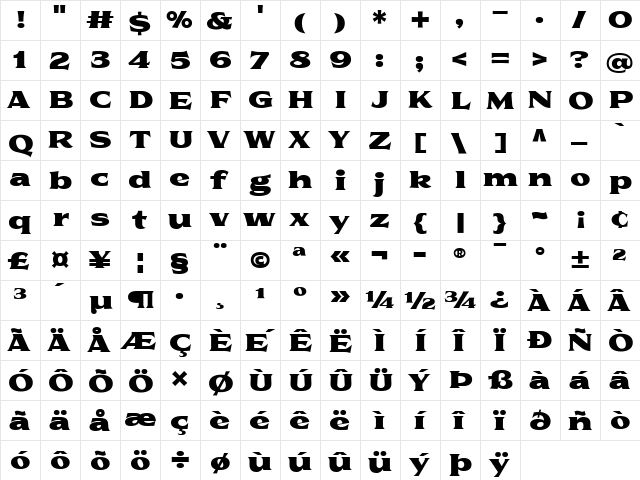
Florent PosterTwo Regular
| Foundry | Cahya Sofyan |
| Designer | Cahya Sofyan |
Design Context for Florent PosterTwo Typeface
Florent PosterTwo takes a measured approach to typography — its balanced proportions and neutral character make it a reliable workhorse for both digital and print work.